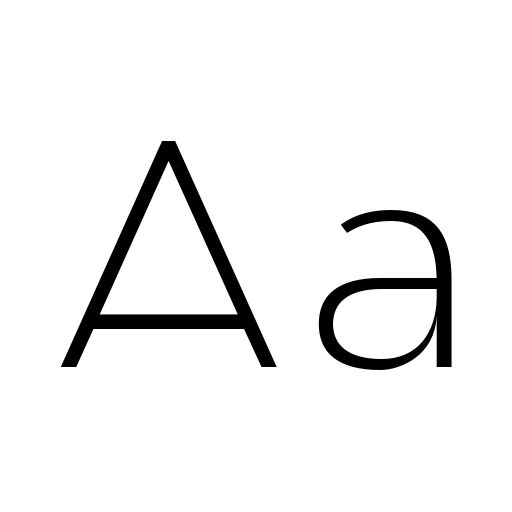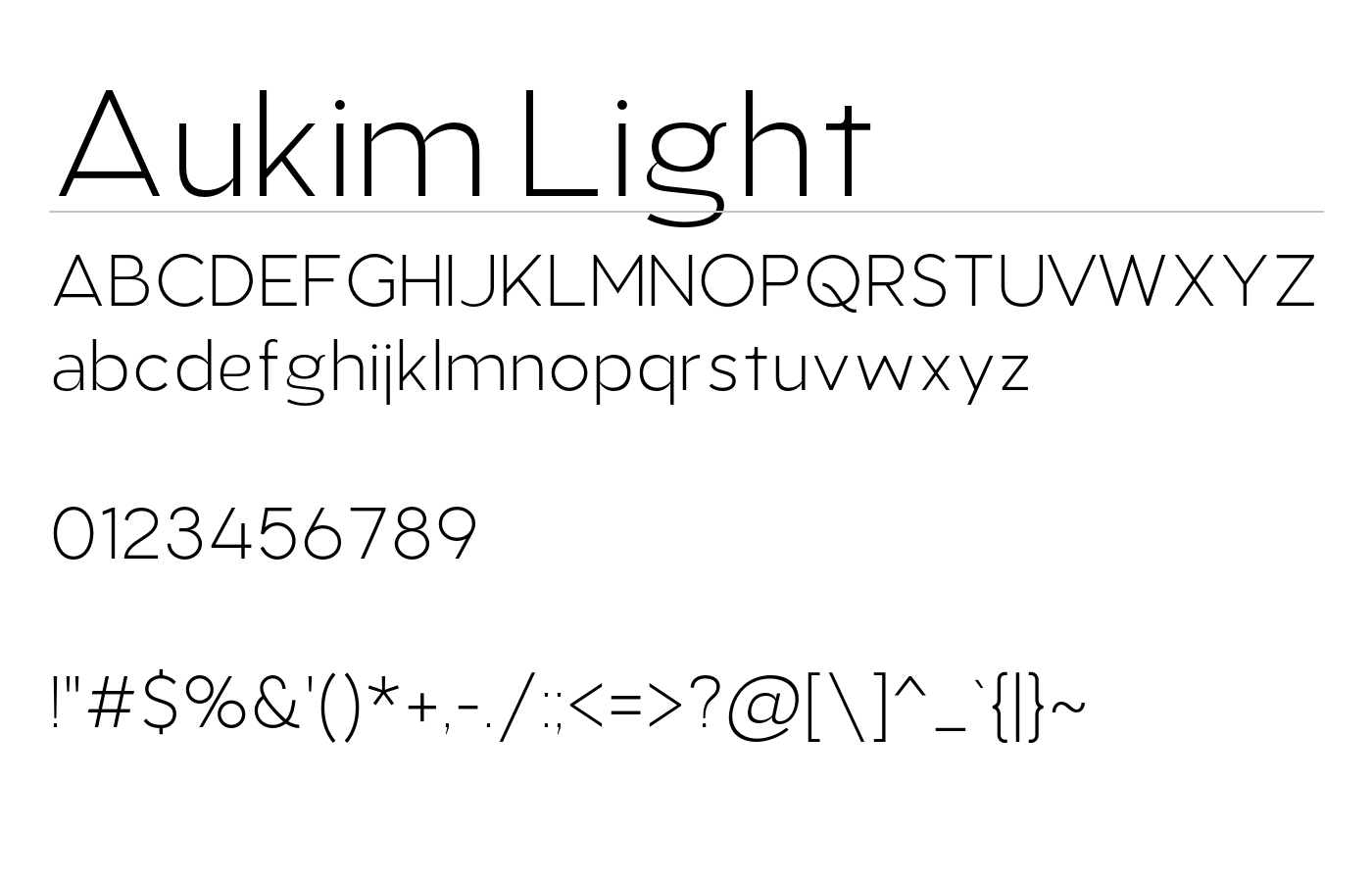
Aukim Light is a refined, modern sans serif font characterized by its delicate weight and clean, geometric letterforms. Its tall x-height and subtle stroke contrast create an elegant yet approachable look, making it well-suited for contemporary branding, editorial design, and sophisticated digital interfaces. This font blends minimalism with a touch of personality, perfect for projects that seek a sleek and professional aesthetic.
Aukim Font
About Aukim Font
| Designer | Audry Kitoko Makelele |